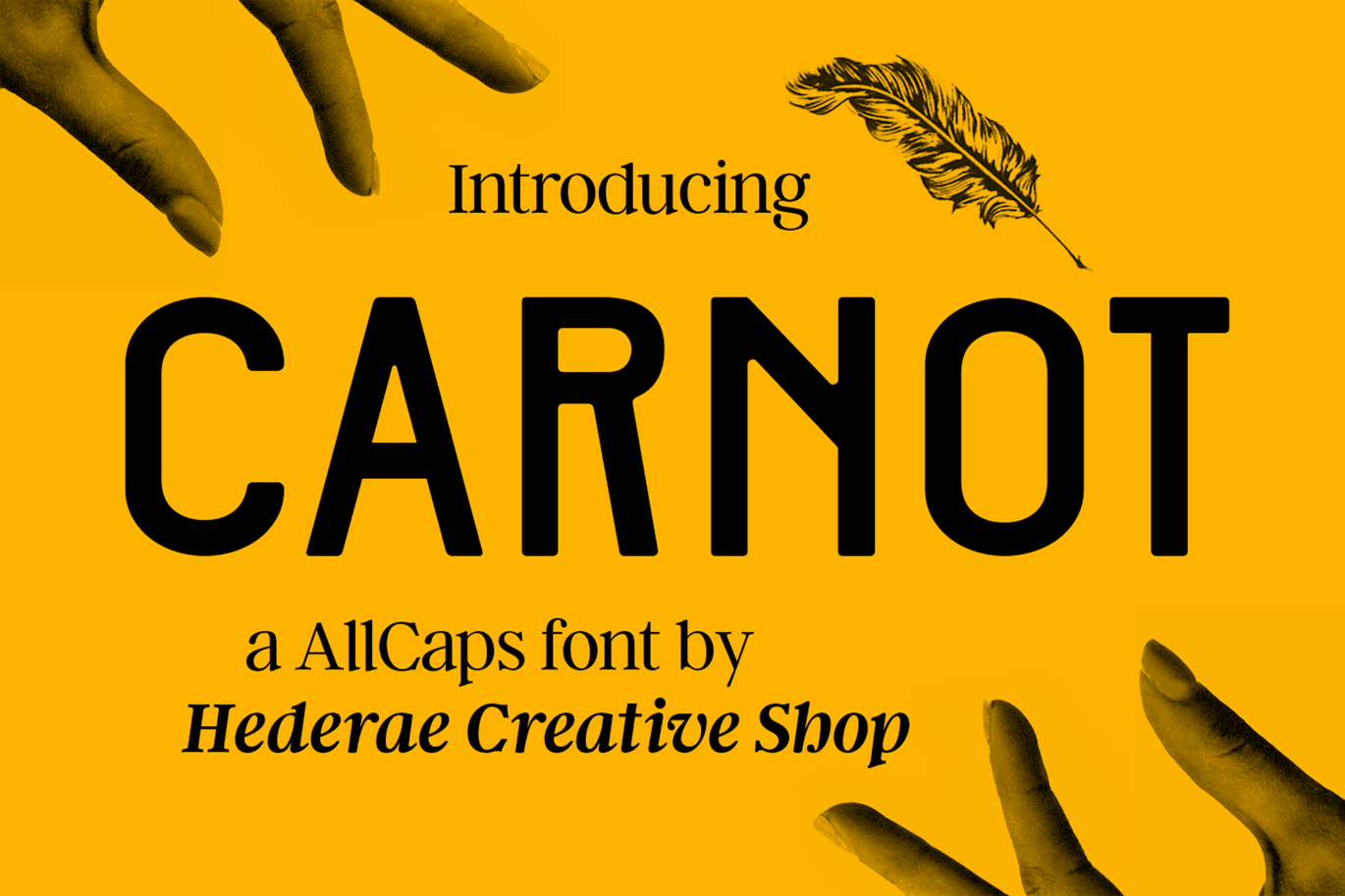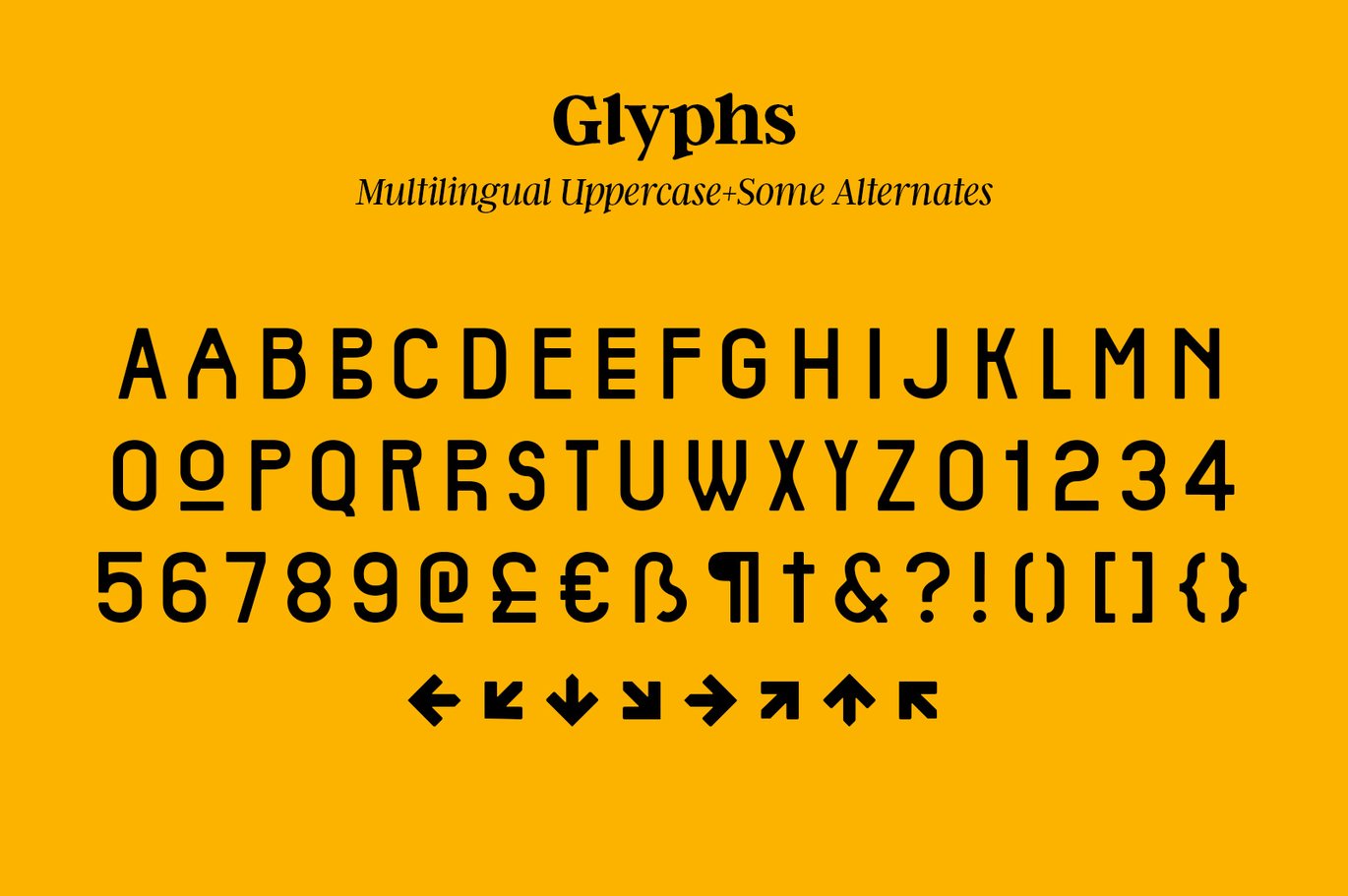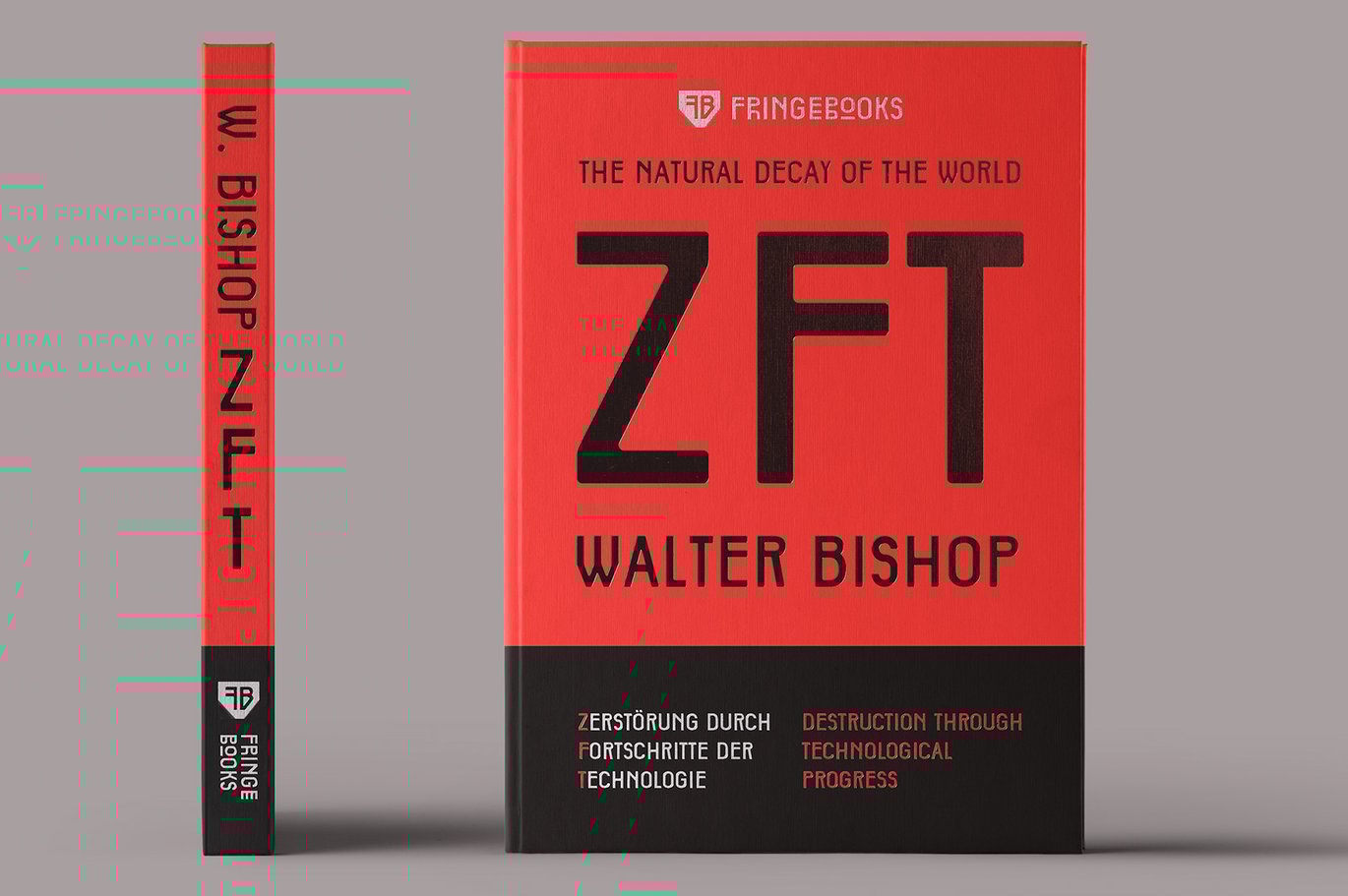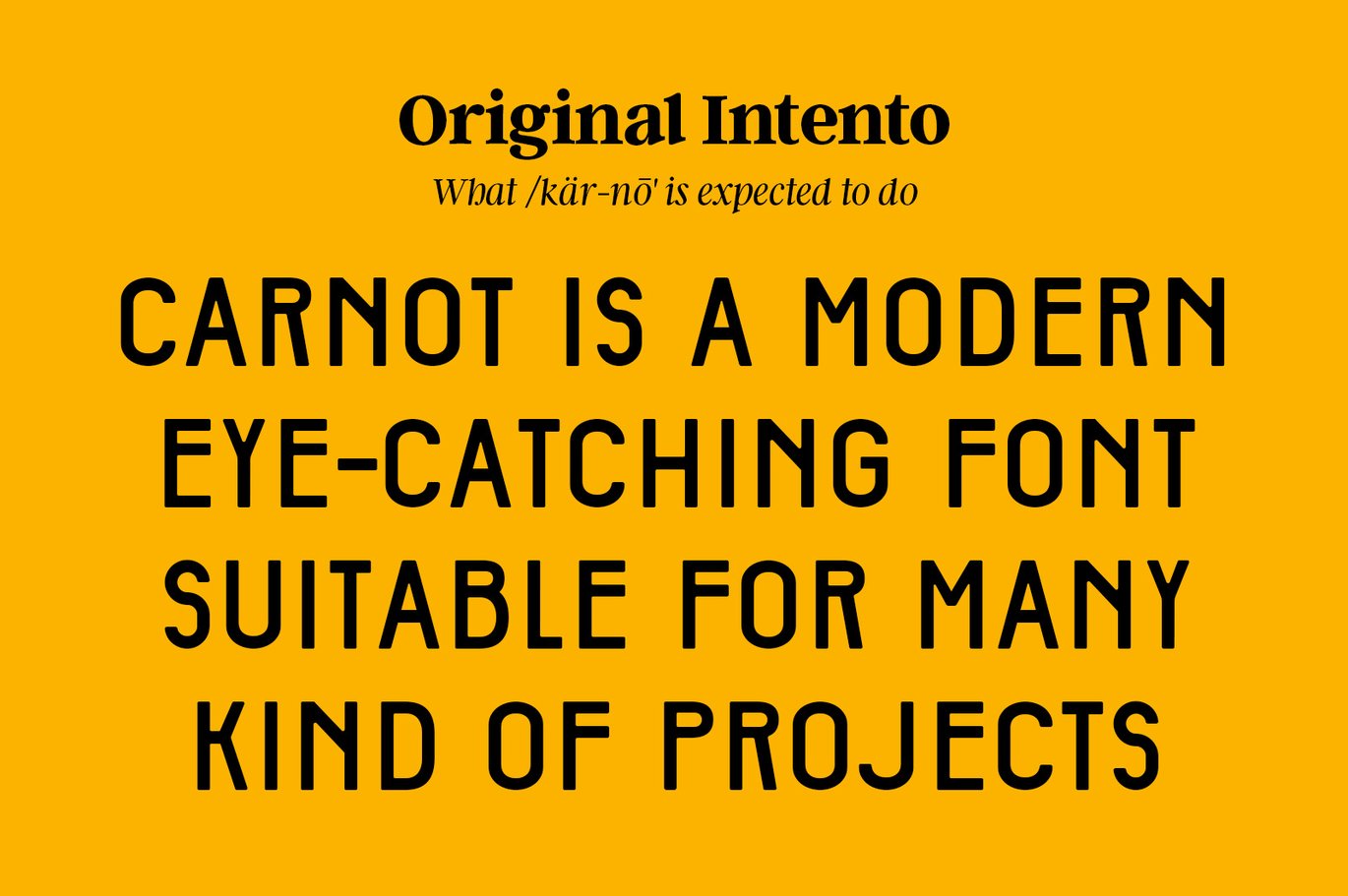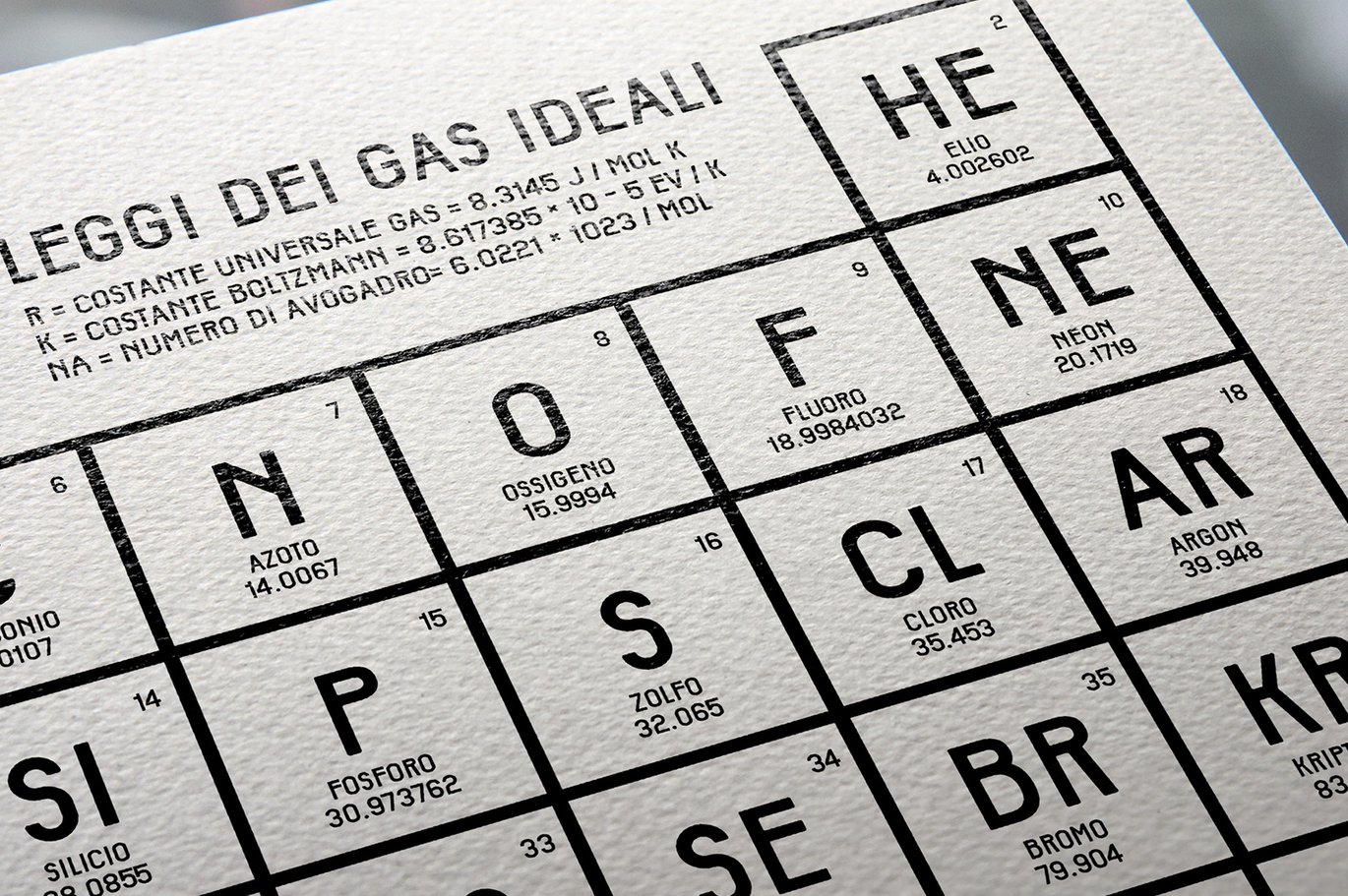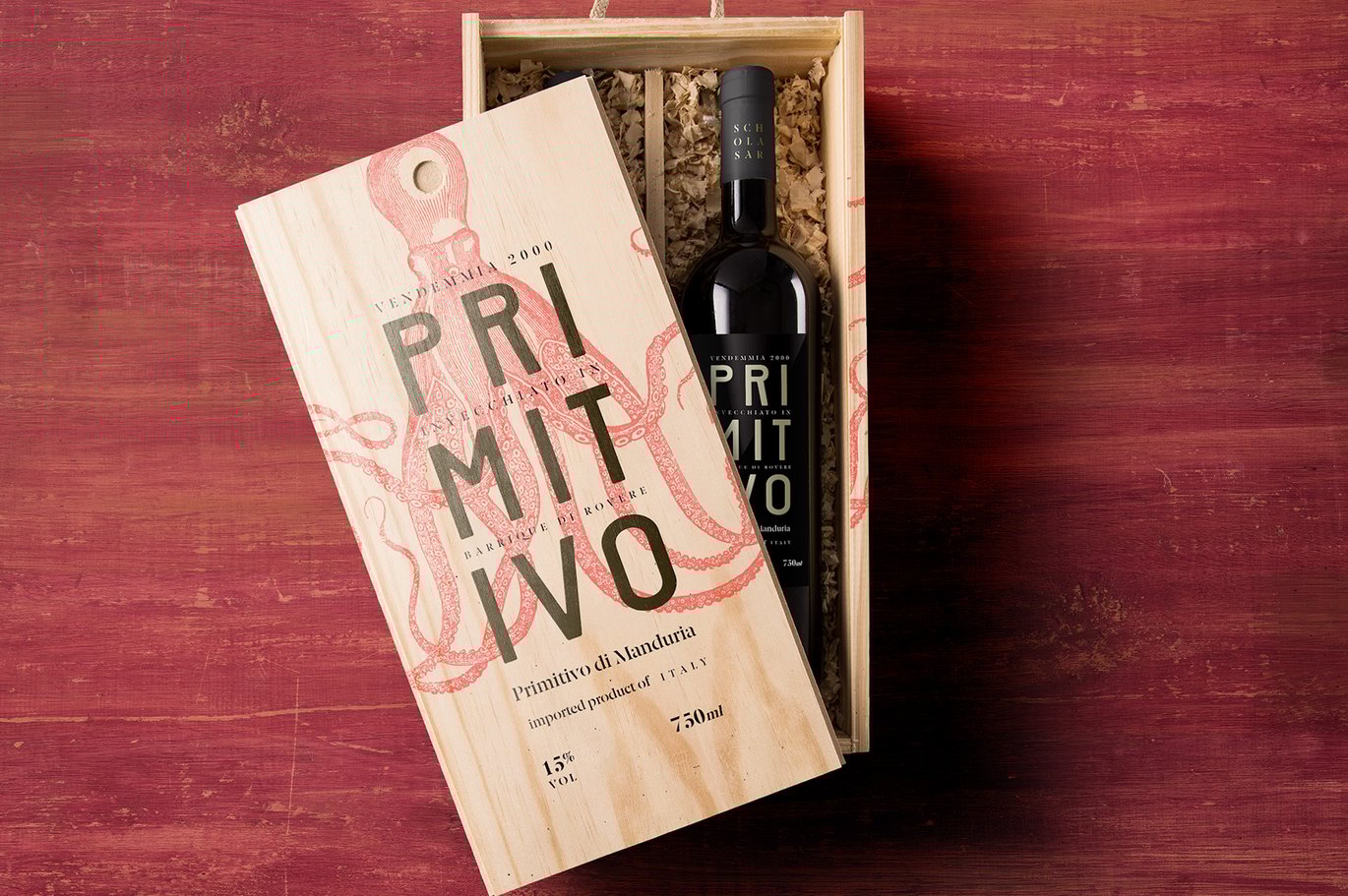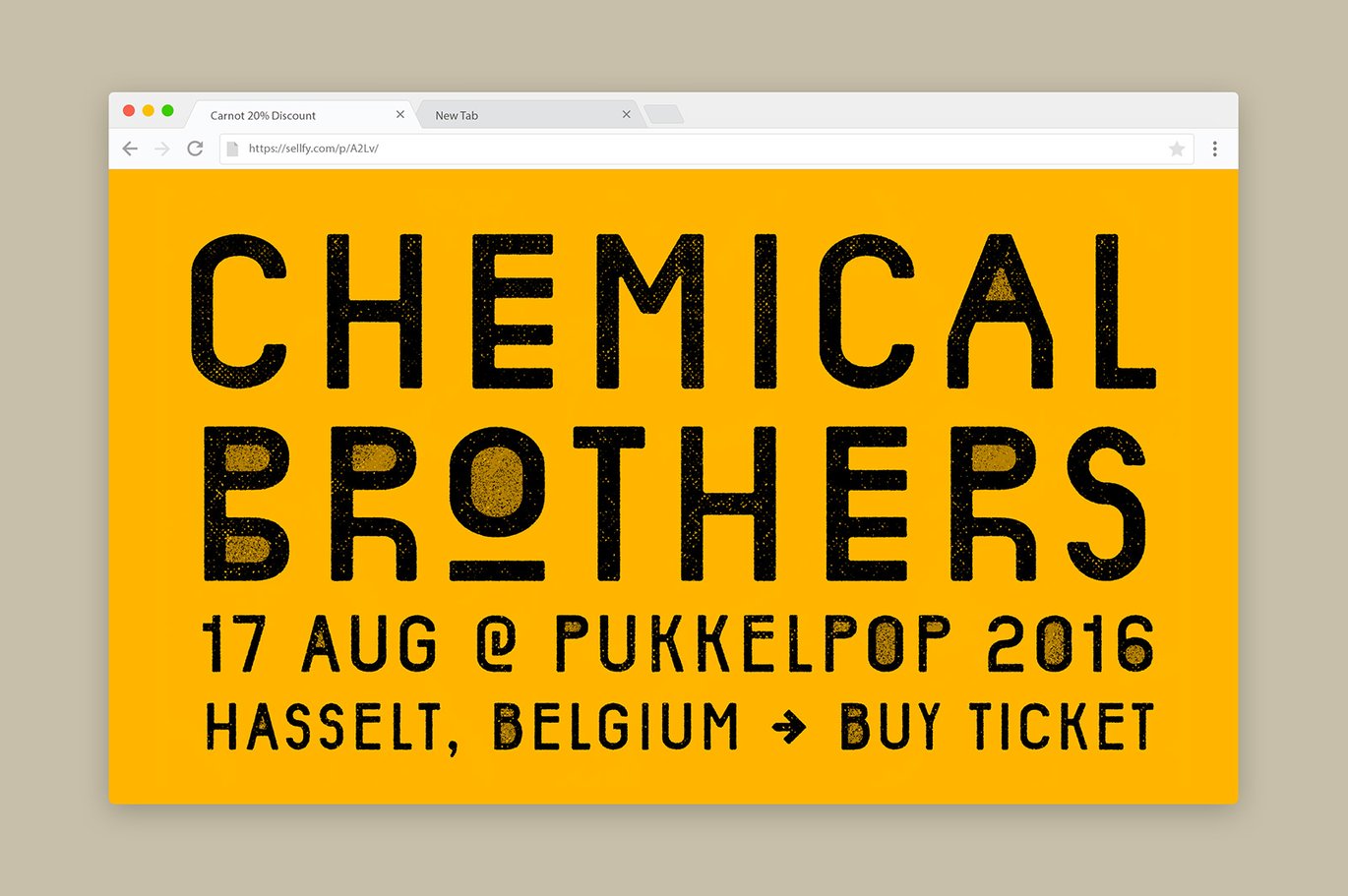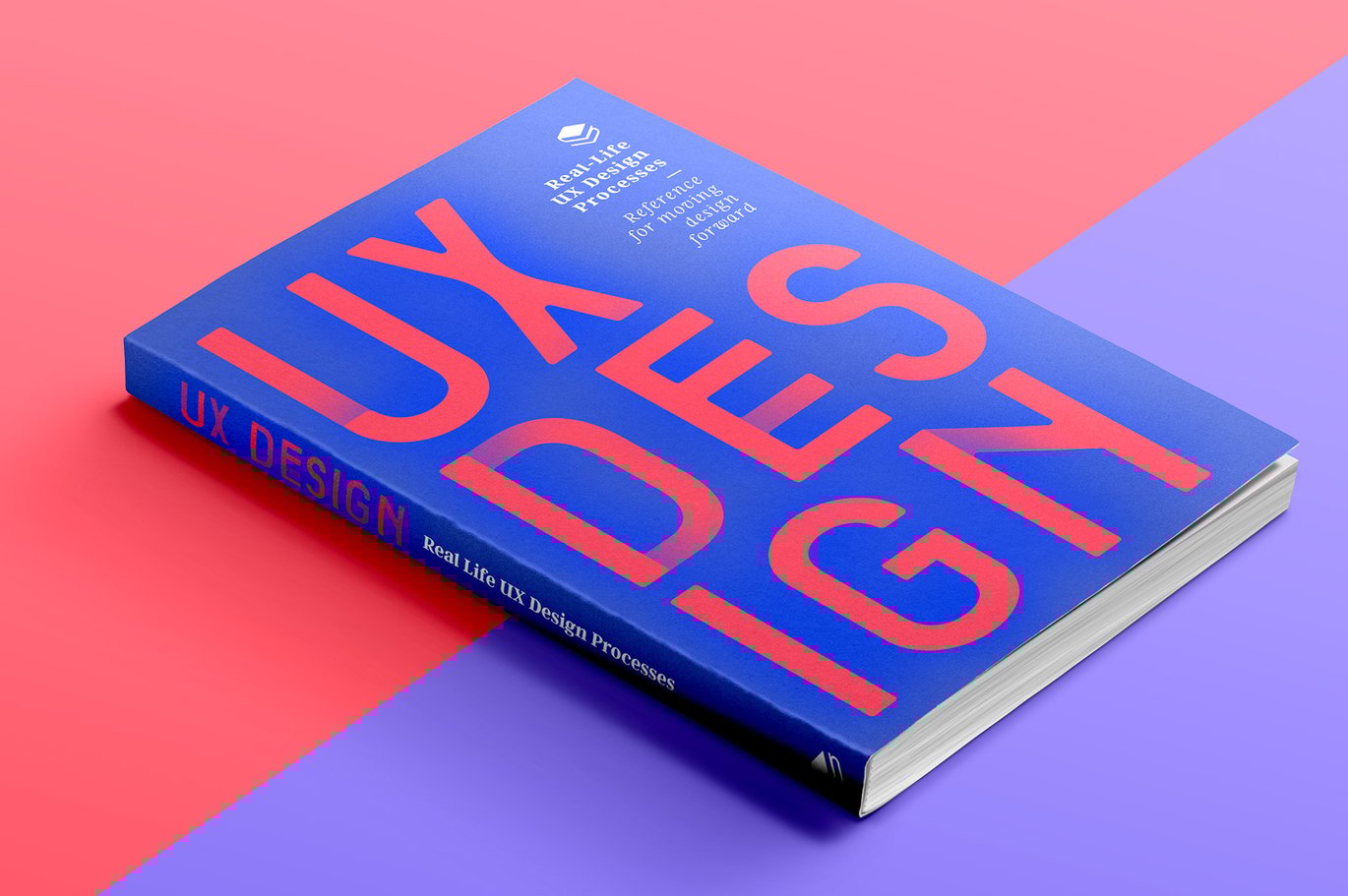
Carnot AllCaps Font
CARNOT IS A MODERN GROTESK TYPE
- Strong, Geometric, Essential. A modern typeface inspired by grotesk most working trends in the past, reworked in metrics to be bold & elegant at once. Carnot letterforms and are great for logotypes, short text, magazines, big lettering and posters.
- Design: *Pure geometries, Subtly Rounded (1.40pt), Narrow and Compact;
- Included some experimental alternates (Aa, Bb, Ee, Oo, Rr, Ææ);
- Languages Supported: Albanian, Catalan, Croatian, Czech, Danish, Dutch, Esperanto, Estonian, Filipino,Finnish (Suomi), West Frisian, French, Hungarian, Irish, Italian, Latvian, Lithuanian, Norwegian, Polish, Portuguese, Romanian, Serbian, Slovenian, Spanish, Swedish, Turkish, Welsh, English, German